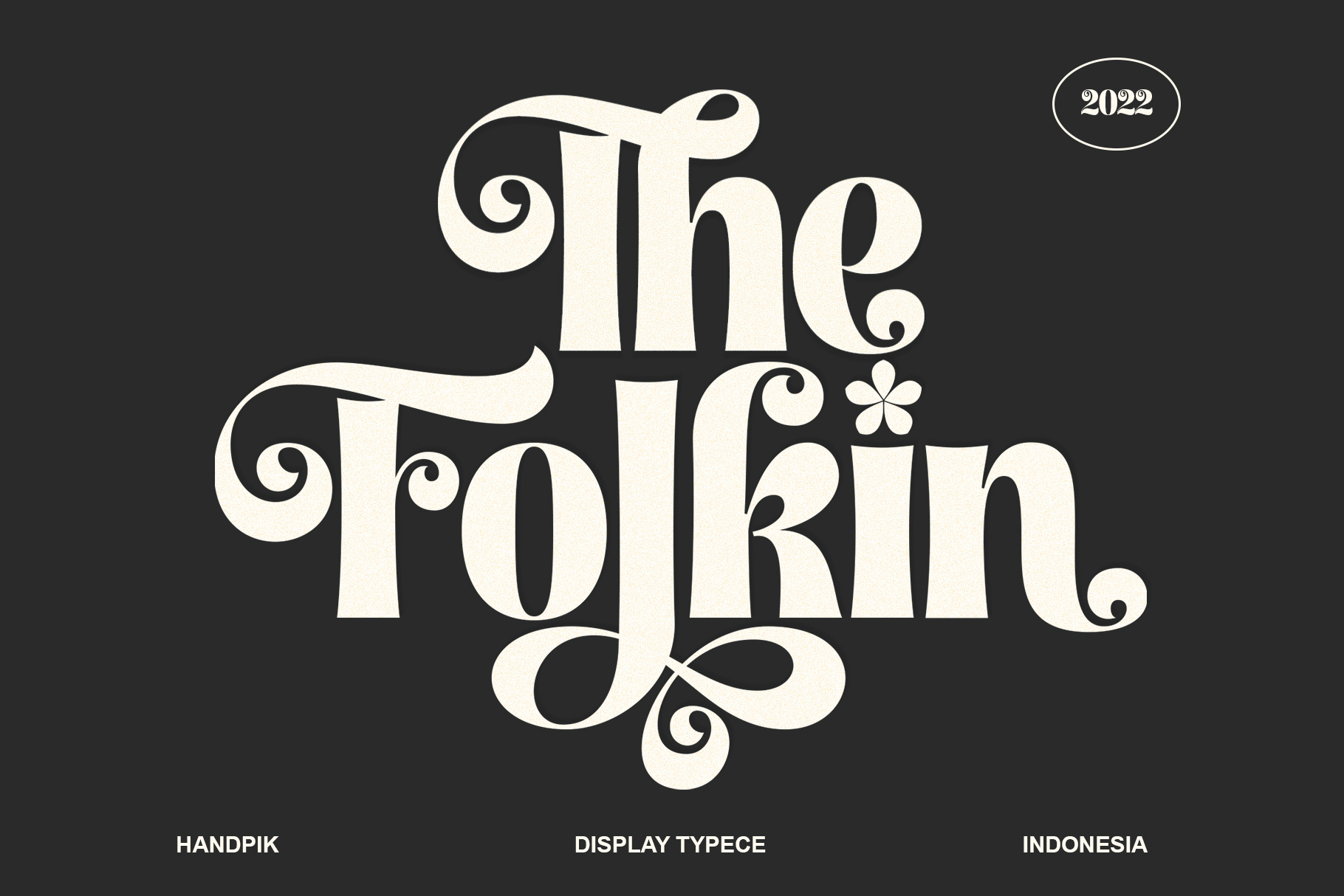
Folkin Display Font
Hello, this time we want to introduce a new product. namely "The Folkin", a Serif display font that has a classic, feminine and elegant style.
Folkin font is perfect for many different projects such as logos & branding, invitation, stationery, wedding designs, social media posts, advertisements, printed quotes, product packaging, product designs, label, photography, watermark, special events or anything.